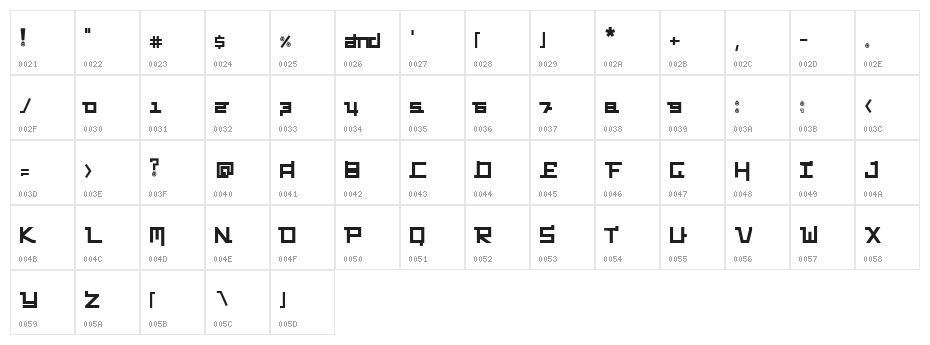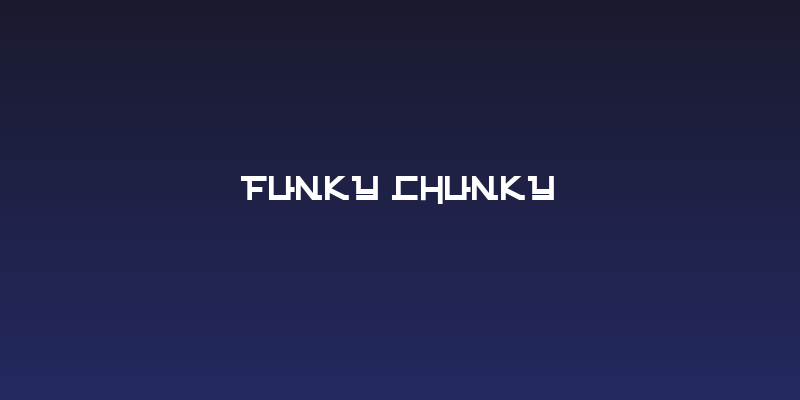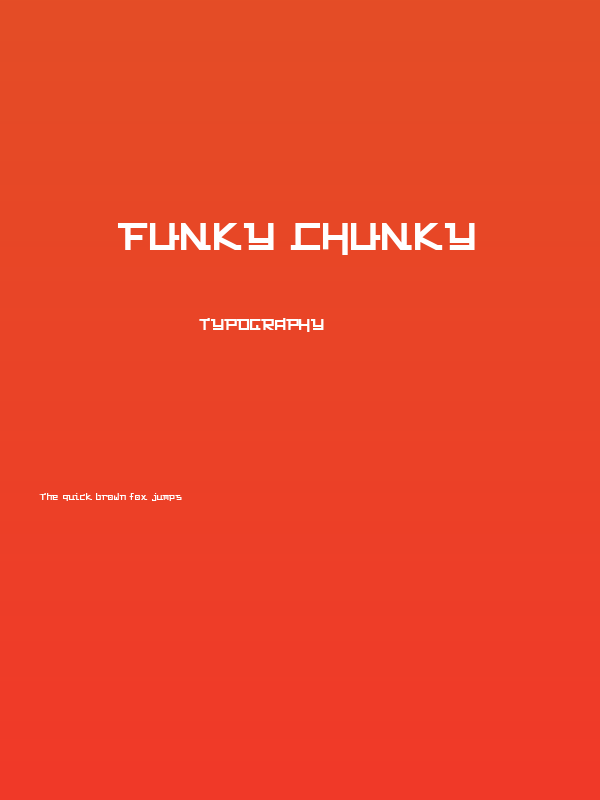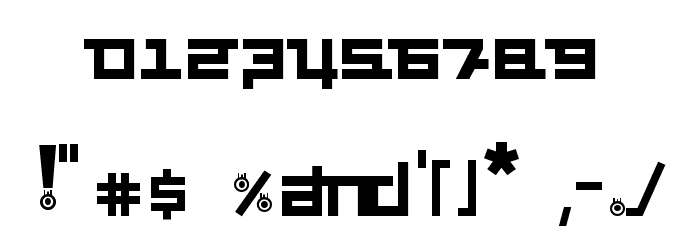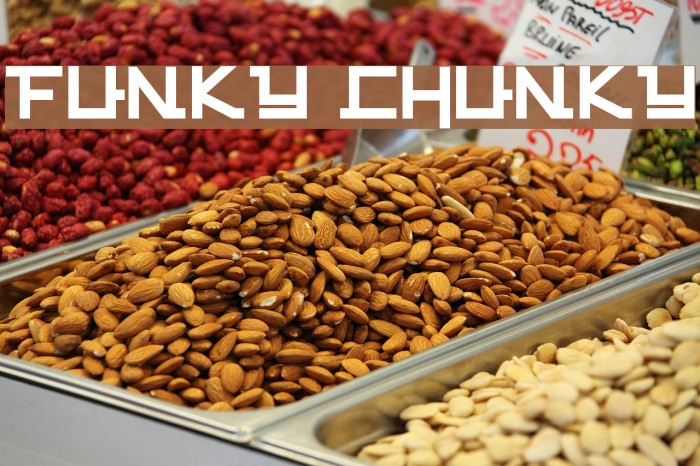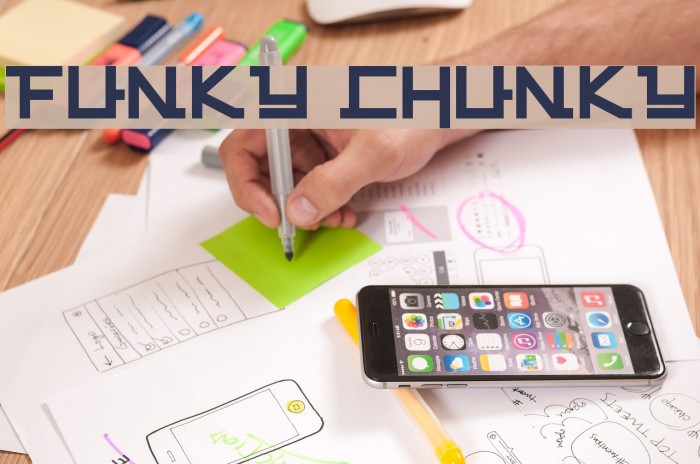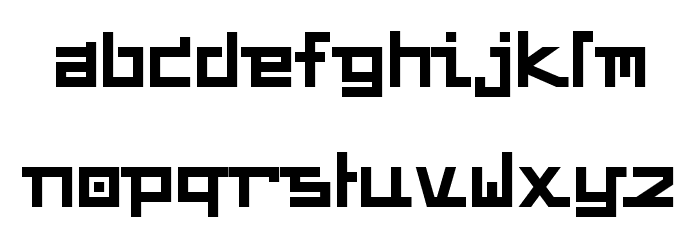
FUNKY CHUNKY Font
FUNKY CHUNKY Description
This font features a bold, geometric design with a distinctly modern and digital aesthetic. The characters are constructed with sharp angles and straight lines, giving it a blocky and futuristic appearance. The uppercase and lowercase letters maintain a consistent style, with the lowercase being slightly more compact. Numbers and special characters follow the same angular and structured design, ensuring uniformity across all glyphs. The font's unique style makes it stand out, ideal for projects that require a strong visual impact.
| Proposed Projects | Ideal for digital art, video game interfaces, tech branding, and futuristic-themed posters. |